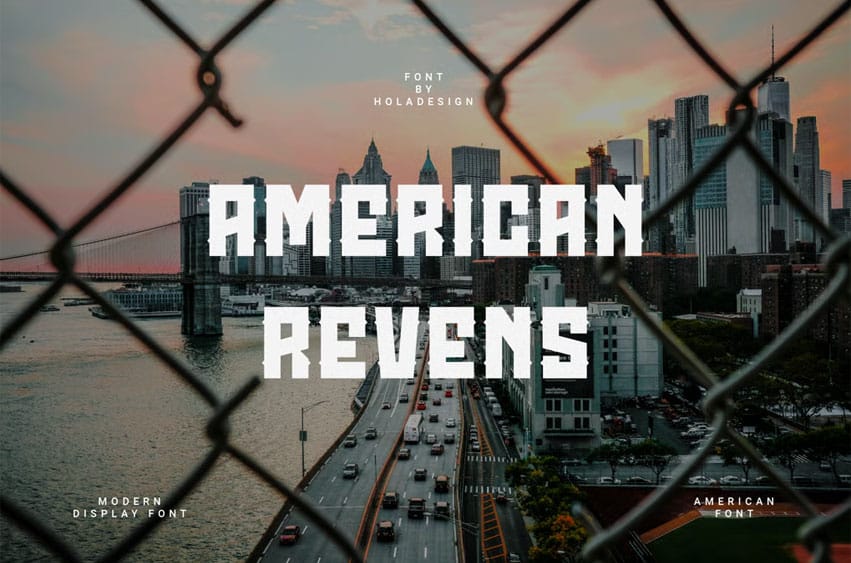
American Revens Font Western & Cowboy Font is unique.
Ready to use for your design like labeling, movie sceen, poster, movie title, gigs, album covers, logos, and much more.